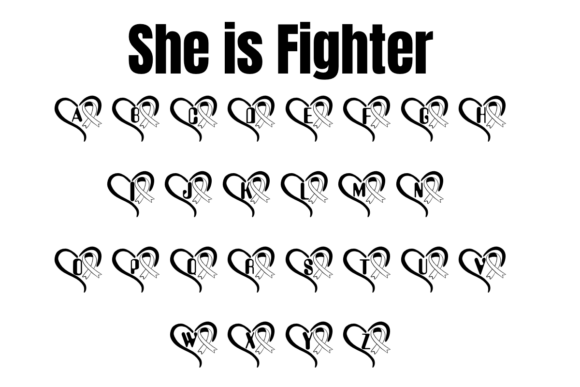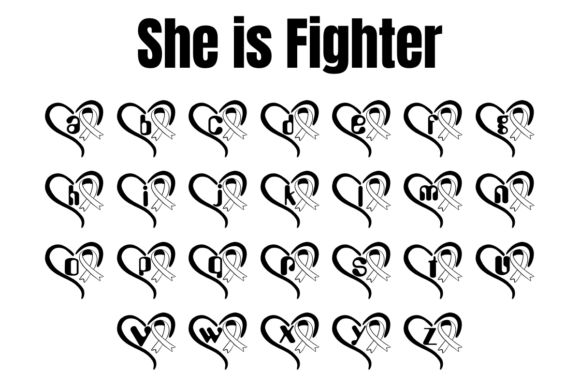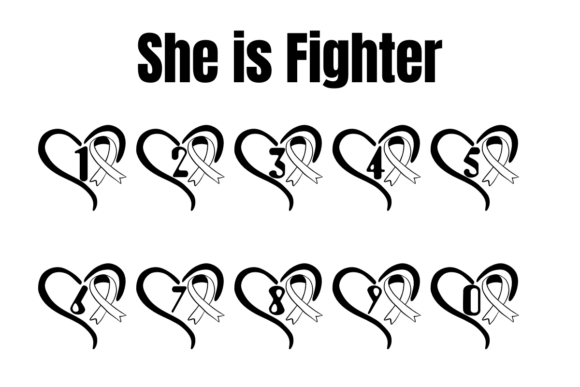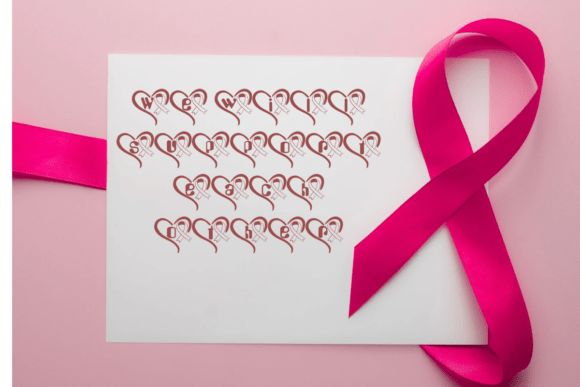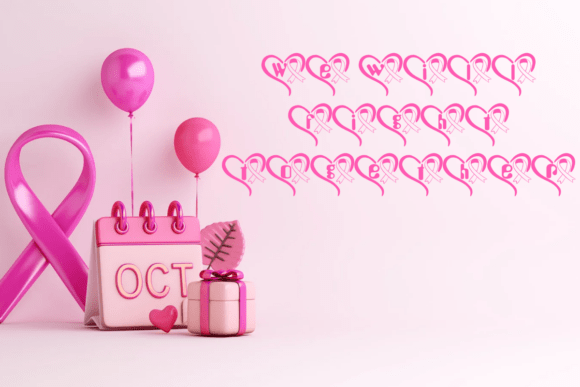
Introduction to She is Fighter Font
Do you ever find yourself rummaging through your sketchbook, searching for the perfect font to bring your creative project to life? It’s that moment when you stumble upon a high-quality font that sparks your imagination and sets your design in motion. For many designers, discovering the perfect font can be a game-changer. And today, we’re excited to introduce you to the She is Fighter Font, a free download that’s about to become your new go-to design resource.
This beautiful decorative font is perfect for adding a touch of elegance to your next creative project. Whether you’re taking notes, writing a diary, or making greeting cards, She is Fighter Font is sure to impress. With its transparent background and high-quality design, you can use it for a wide range of applications, from banners and content to mugs, cards, and shirts.
Key Features of She is Fighter Font
- High-quality design with a strong, bold aesthetic, making it perfect for a creative project.
- Unique characteristics include a strong, bold font style and a modern, edgy feel, making it ideal for use in bold, attention-grabbing designs.
Honest Review: She is Fighter Font
I recently came across the She is Fighter Font, and I must say, it’s a great addition to any designer’s toolkit. As a free download, it’s a fantastic resource for anyone looking to add some flair to their creative project.
One of the standout features of this font is its high-quality design. The transparent background and bold, modern aesthetic make it perfect for a variety of design applications. ✨ I particularly love using it for titles and headings, as it really adds a touch of sophistication to any design.
- Perfect for creating bold, eye-catching titles
- Great for modern, creative projects
- High-quality design with a transparent background
However, I do have a few limitations to note. ⚠️ The font can be a bit overwhelming when used in large quantities, so it’s best to use it sparingly. Additionally, it may not be the best choice for body text, as it can be a bit difficult to read in smaller sizes.
Overall, I’m really impressed with the She is Fighter Font. It’s a great addition to any designer’s toolkit, and I would highly recommend it for anyone looking to add some creativity to their project.
The She is Fighter Font is a high-quality, free download design resource perfect for creative projects. With its unique and bold style, it’s ideal for adding a touch of personality to your designs.
Tips for Getting the Most Out of She is Fighter Font
Use the She is Fighter Font on a transparent background to give your design a sleek and modern look. Experiment with different font sizes and colors to create a unique and eye-catching design.
The She is Fighter Font is perfect for creative projects such as posters, flyers, and social media graphics. It’s also great for use in presentations, documents, and websites.